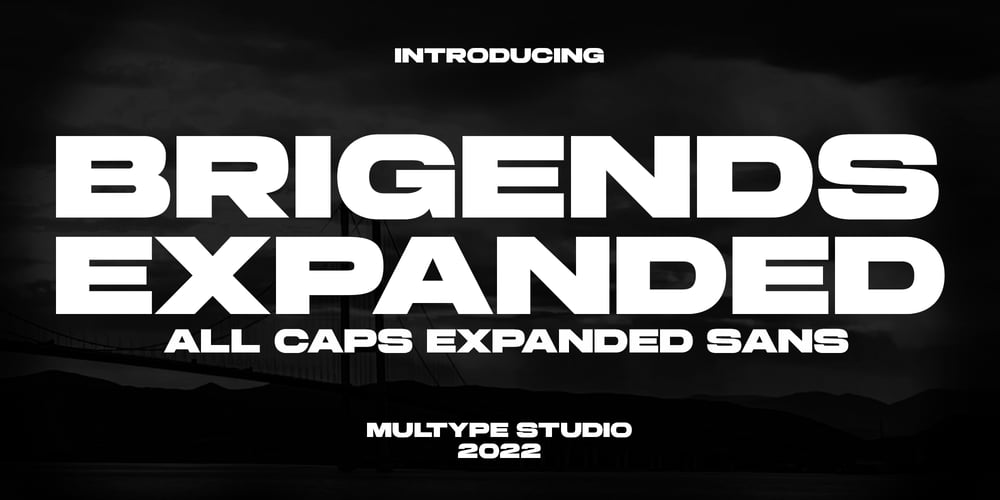
Brigends Expanded Font Family was designed by Mulia Yanto and published by Multype Studio. Brigends Expanded contains 1 styles and family package options. Brigends Expanded is a bold sans serif font which looks great to be modern and strong impression to your design.This font is also suitable to be applied especially in logo, branding, promotions, posters, book covers, magazine layouts, social media, headlines, titling, movie title, logo brand, logo company, layout website and other design.What’s Included : All Caps Numbers & Symbols Works on PC / Mac Simple installations Accessible in the Adobe Illustrator, Adobe Photoshop, Adobe InDesign, even work on Microsoft Word PUA Encoded Characters, Fully accessible without additional design software Multilingual support Thank you for your purchase!Hope you enjoy with our font!